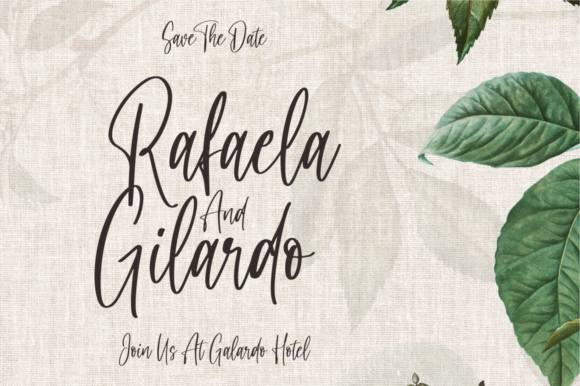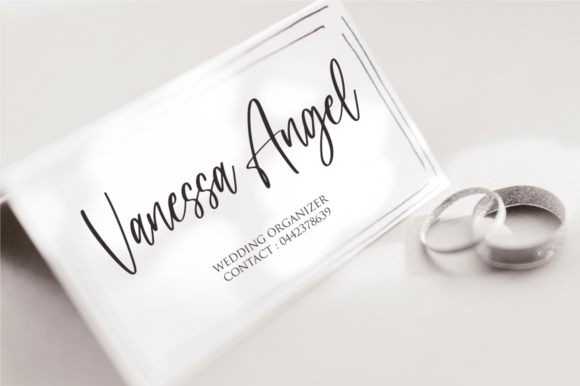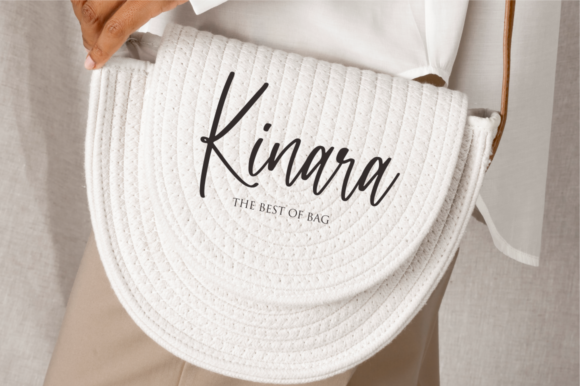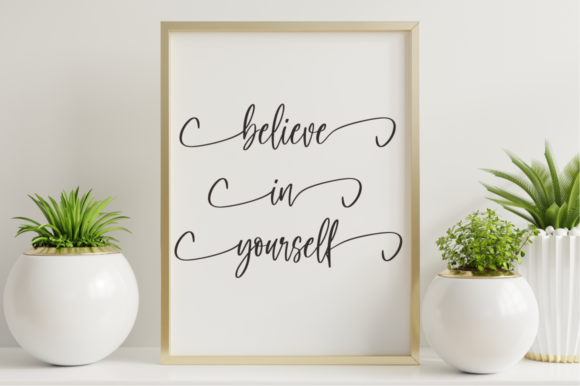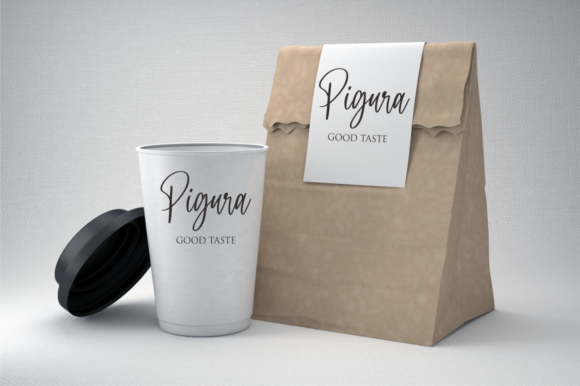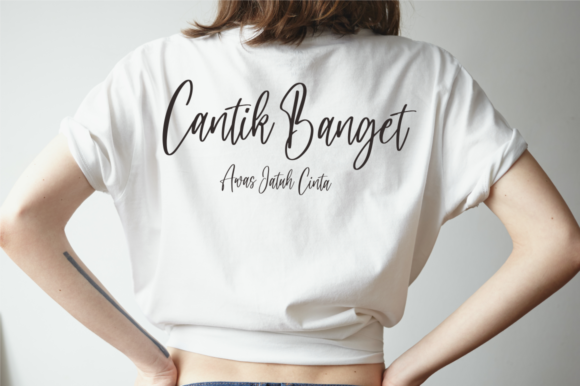
The Elusive Perfect Font: My Encounter with Daddy Day
Ah, the quest for the perfect font. We’ve all been there – stuck in the middle of a design project, scrambling to find that one font that brings everything together. I recall a particularly frustrating experience with a client who wanted a elegant, yet playful look for their branding. After hours of sifting through font libraries, I stumbled upon Daddy Day Font. It was love at first sight! 💕
This lovely and delicate script font exudes elegance and class, making it perfect for designers, crafters, and creative hobbyists looking to elevate their designs. In this article, I’ll share my experience with Daddy Day, its features, and how to make the most of it in various design platforms.
An Honest Review of Daddy Day Font
- ✨ Elegant and delicate script style
- 💫 Perfect for designs that require a touch of class and sophistication
- 🎨 Highly versatile for various design projects, from branding to crafting
While Daddy Day is an excellent font, there are a few things to keep in mind:
- ⚠️ As a script font, it may not be suitable for very small font sizes or body text
- 🤔 Limited availability of bold or heavy weights, which may limit its use in certain designs
The Backstory of Daddy Day Font
While I couldn’t find any information on the font’s creator, I imagine that Daddy Day was crafted with love and care, inspired by the beauty of handwritten scripts. Perhaps the designer wanted to create a font that would make people feel special, like a warm hug in typography form. Whatever the story behind it, Daddy Day is undoubtedly a gem in the world of fonts.
Q: Is Daddy Day suitable for body text or small font sizes?
A: As a script font, Daddy Day is best suited for display text or larger font sizes. It may not be ideal for body text or very small font sizes, where readability might be compromised.